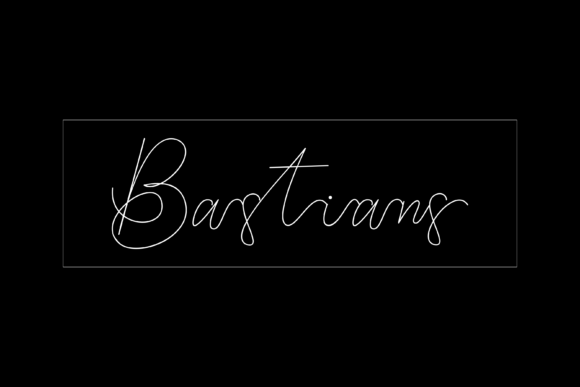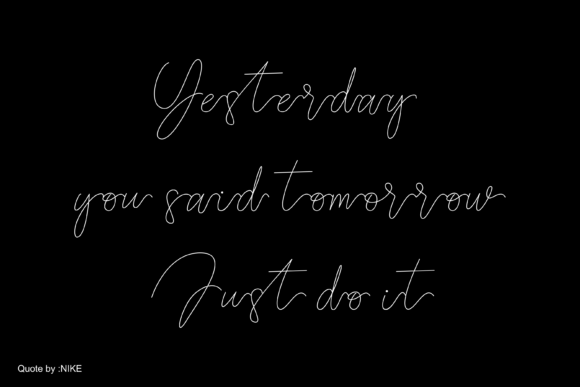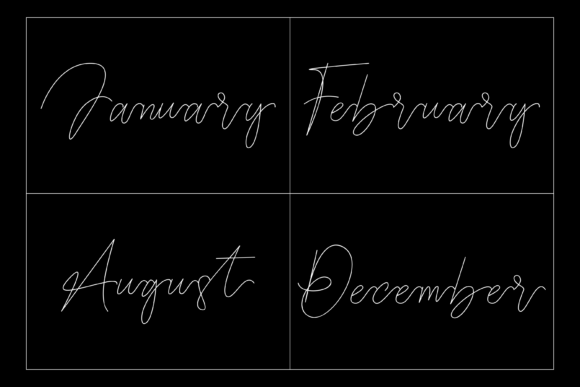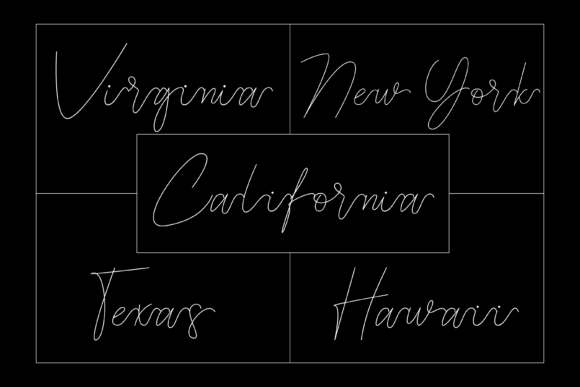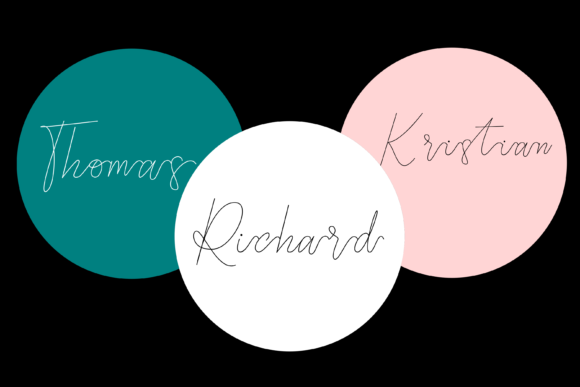
About Bastians Font
Bastians is a thin lettered and delicate script font that exudes elegance and class. It was crafted for those who need a beautiful and refreshing look to their designs.